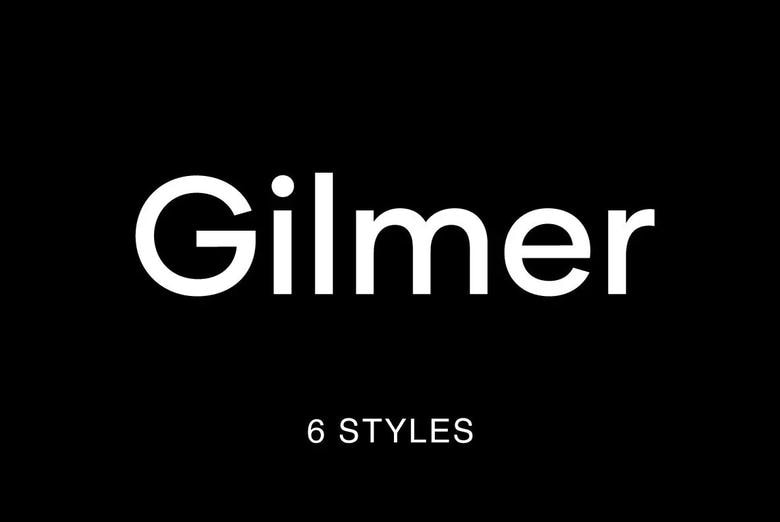
Gilmer Font
Gilmer is a new geometric, sans-serif font drawing inspiration of the well-known typefaces, such as Futura and Avant Garde. Gilmer has a large x-height, geometrical letterforms and sharp edges. The font is flexible. It may be utilized in Magazines, Posters, Branding, Websites etc.
Gilmer Sans Serif Font